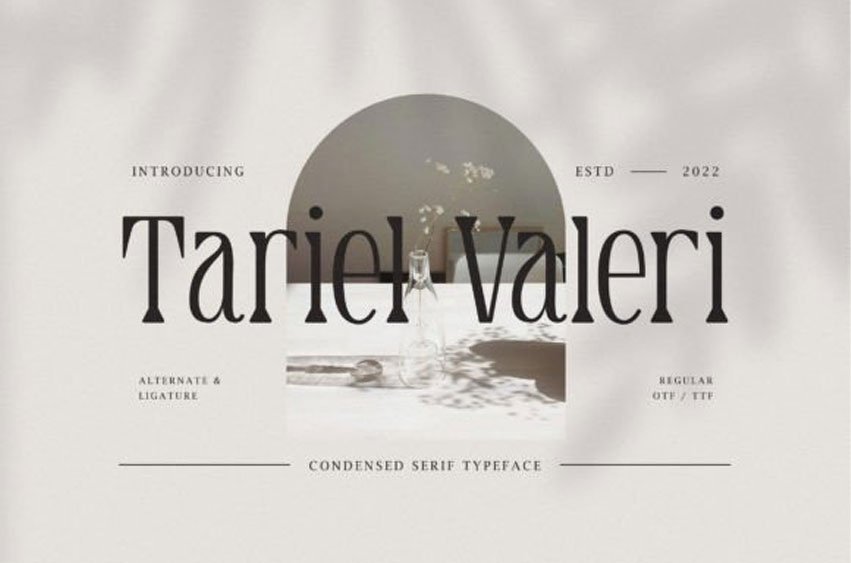
Tariel Valeri Font is a condensed serif font perfect for your upcoming projects such as luxury logo and branding, classy editorial design, woman magazine, cosmetic brand, fashion promotional, art gallery branding, museum, boutique branding, stationery design, blog design, modern advertising design, card invitation, art quote, home decor, book/cover title, special events, and any more.